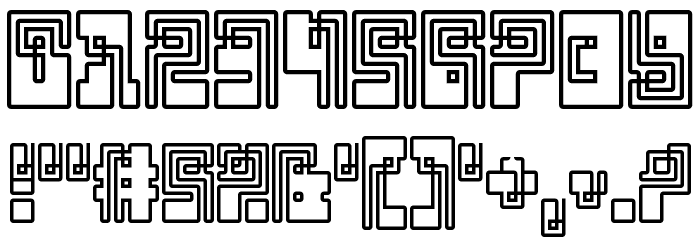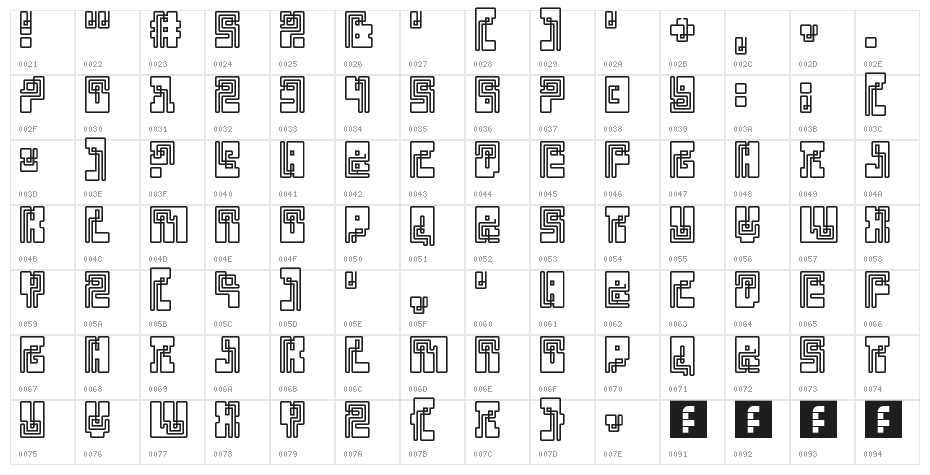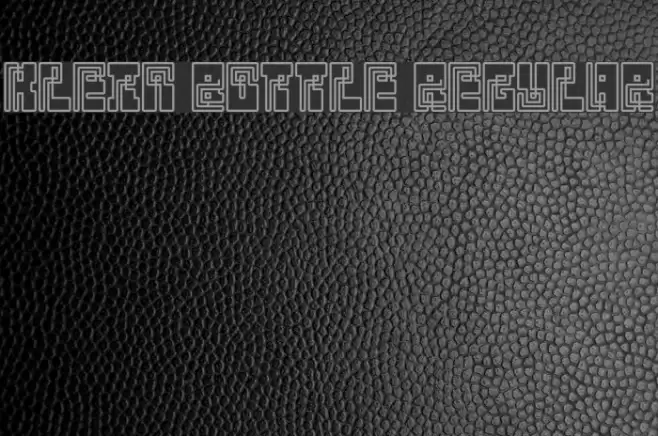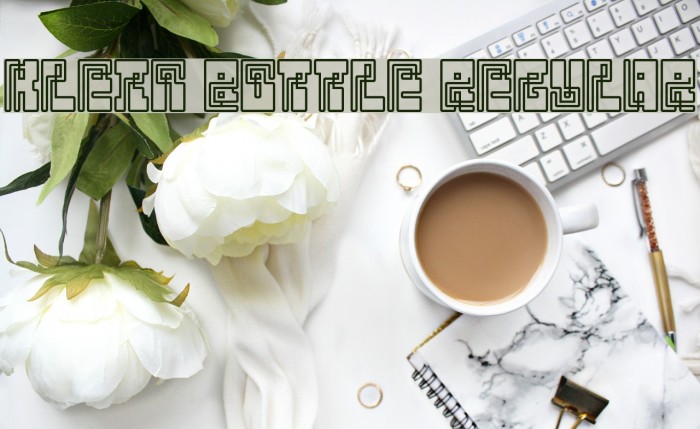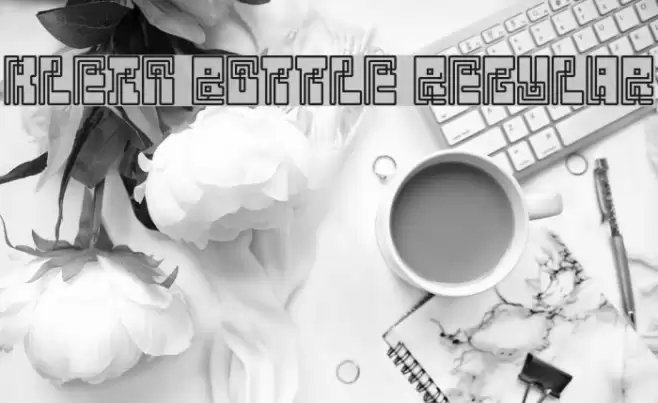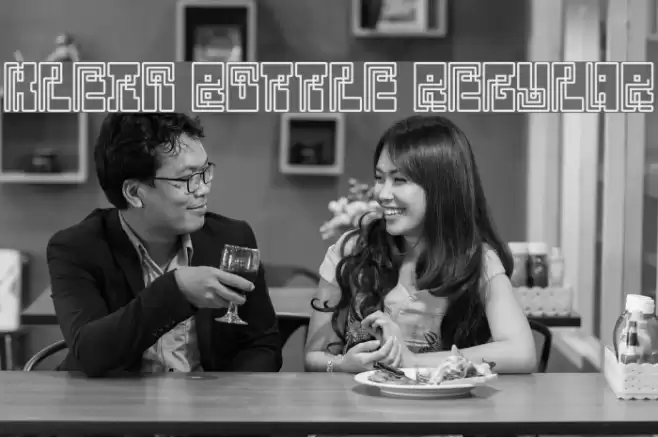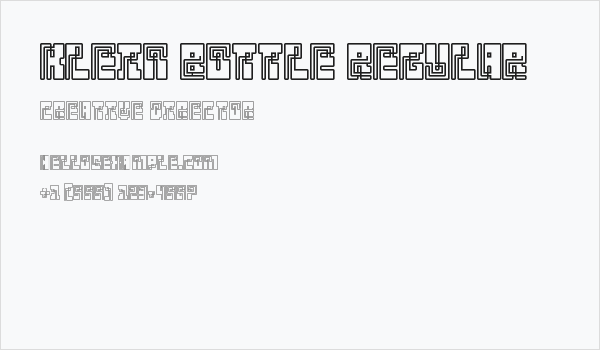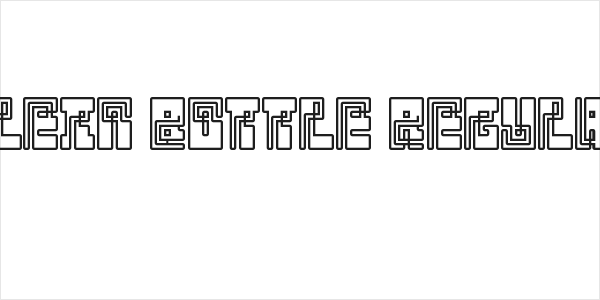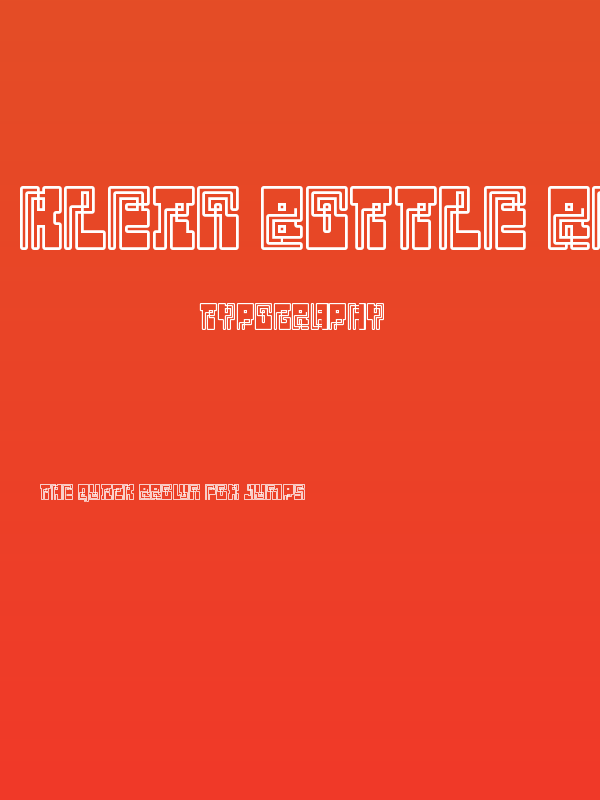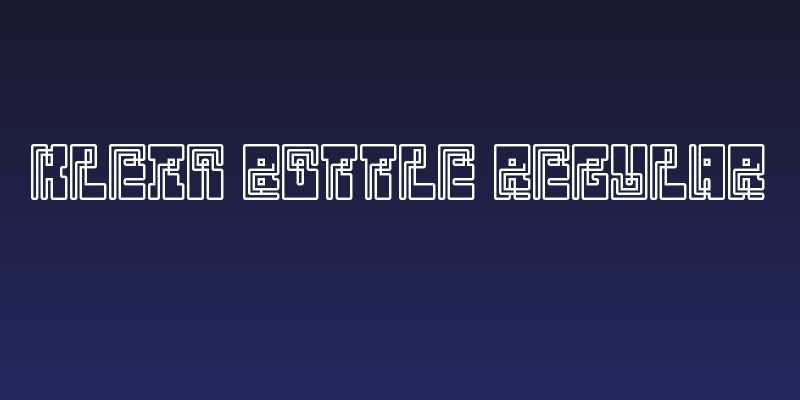
Klein Bottle Regular Font
Klein Bottle Regular Description
This font features a unique, maze-like design with intricate, interconnected lines forming each character. The geometric shapes create a sense of complexity and modernity, making it stand out as a decorative typeface. The characters are bold and have a consistent line thickness, giving them a uniform appearance. The font's style is highly distinctive, with each letter and number appearing as if it is part of a continuous path or circuit. This design choice makes it particularly suitable for creative and artistic projects where a futuristic or abstract look is desired. The spacing between characters is tight, enhancing the compact and cohesive feel of the text.
| Use Case | Logos, Posters, Creative projects |
| Proposed Projects | Ideal for modern art projects, tech-themed designs, posters, and unique branding materials. |